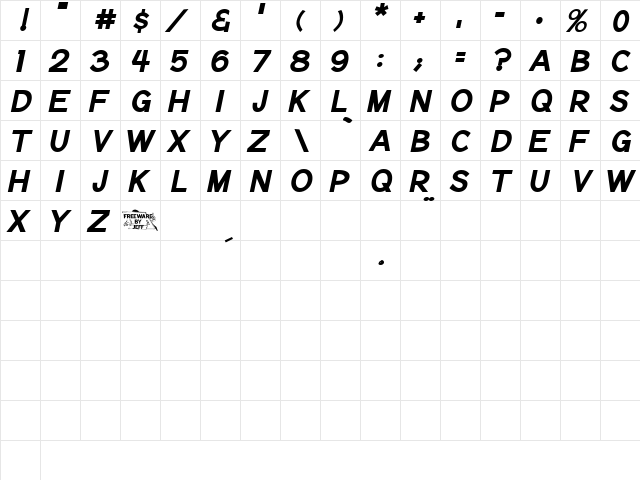
Notation Bold Italic JL Regular
| Foundry | Jeff's Fonts & Dingbats |
| Designer | Jeffrey N. Levine |
Design Context for Notation Bold Italic JL Typeface
Notation Bold Italic JL takes a measured approach to typography — its balanced proportions and neutral character make it a reliable workhorse for both digital and print work. The slanted form adds forward momentum and visual energy. Its bold stroke weight gives it real presence on the page.